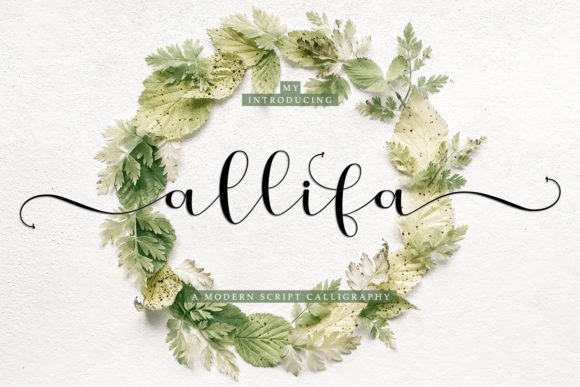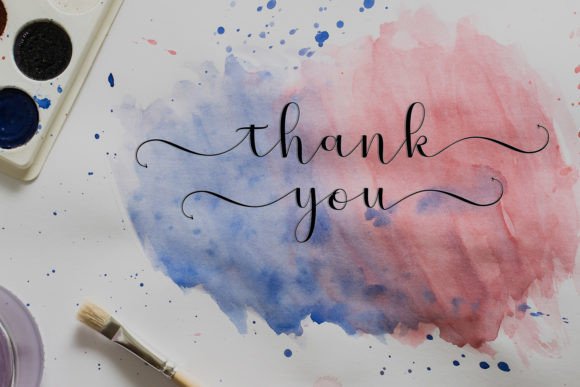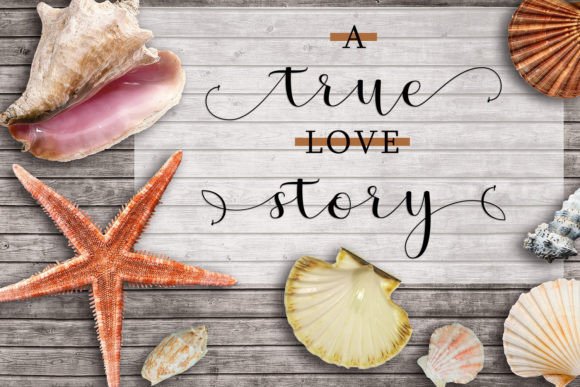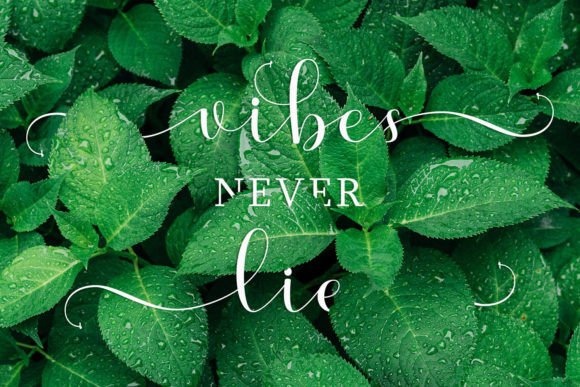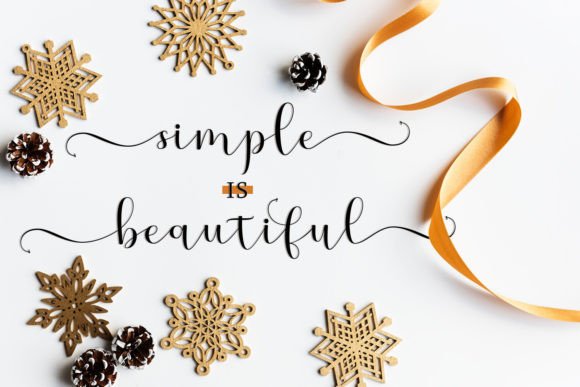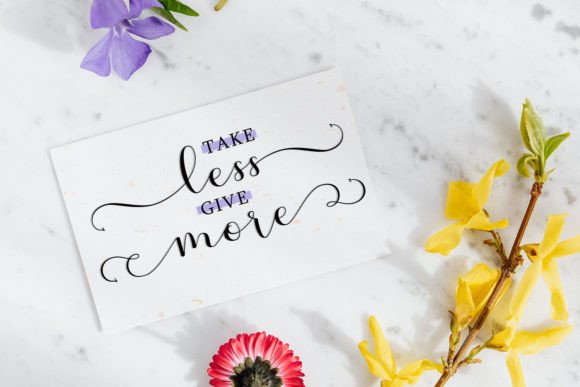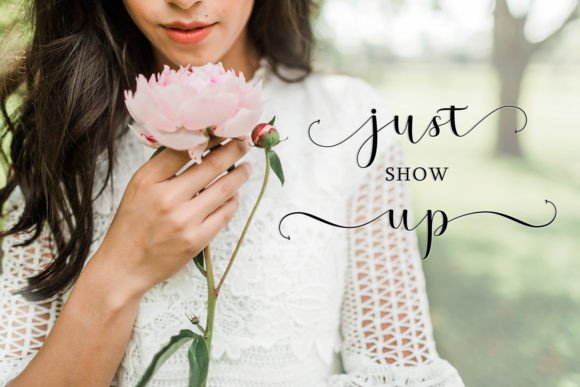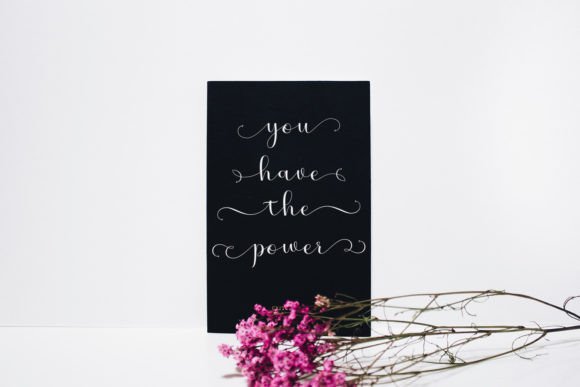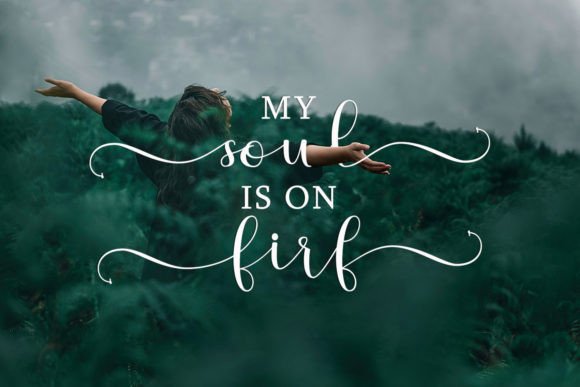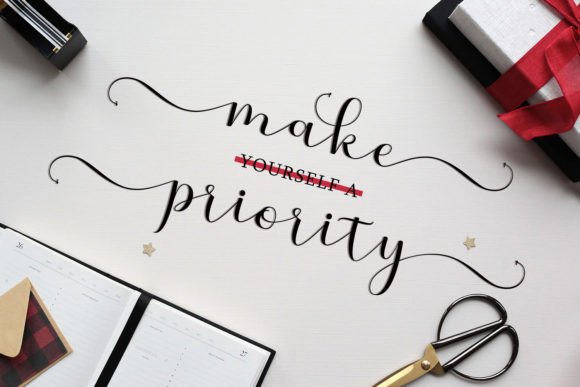
Allifa Font
About Allifa Font
Allifa font is a beautifully crafted handwritten script that brings charm and elegance to any design project. Its sophisticated style makes it an ideal choice for a wide range of creative applications. Whether you are designing wedding invitations, thank you cards, or branding materials, Allifa adds a personal and graceful touch that elevates your work.
Elegant and Charming Handwritten Style
Allifa stands out because of its fluid strokes and delicate curves. The font reflects the warmth and intimacy of true handwriting, making your designs feel more authentic and inviting. Its elegant style blends traditional calligraphic influences with a modern twist, offering both beauty and versatility. You can confidently use it in formal or casual contexts alike.
Versatile Applications for Every Project
One of the best features of Allifa font is its adaptability. It suits many different design projects, including:
• Wedding Invitations: Add romance and sophistication to your invites with this graceful script.
• Thank You Cards: Express gratitude with a warm, personal touch.
• Quotes and Greeting Cards: Make your messages stand out with elegant typography.
• Logos and Branding: Craft unique and memorable brand identities.
• Business Cards: Impress clients with stylish and professional typography.
Thanks to its versatility, Allifa font can become a staple in your creative toolkit.
Readability and Style in Perfect Harmony
While Allifa offers beautiful, flowing letterforms, it also maintains excellent readability. The font balances decorative flair with clear legibility, making it perfect for both headlines and body text. You can rely on Allifa to communicate your message clearly while maintaining a distinctive handwritten feel.
Why Choose Allifa Font?
Choosing Allifa font means opting for a timeless handwritten script that brings elegance and personality to your designs. Its detailed craftsmanship and versatile usage options make it a great asset for designers, event planners, and creatives who want their work to stand out with grace and style.
How to Use Allifa Font Effectively
• Combine Allifa with clean sans-serif fonts to create striking contrasts.
• Use it for special occasion materials where a personal, elegant feel is desired.
• Explore its glyphs and ligatures to add flair and .
• Apply it on digital and print projects alike to maintain brand consistency.
Allifa font brings a perfect blend of charm, elegance, and to any design project. With its smooth, flowing strokes and user-friendly PUA , it is a must-have font for creatives looking to add a handwritten touch to their work.